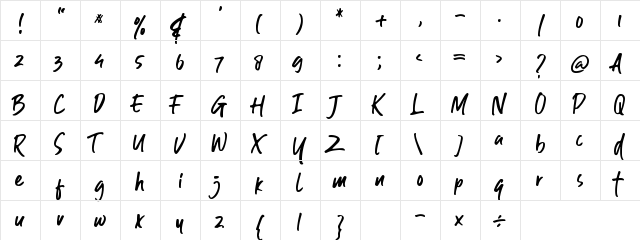
Guthen Bloots Personal Use Regular
Design Context for Guthen Bloots Personal Use Typeface
Guthen Bloots Personal Use is a composed and adaptable typeface that performs quietly and consistently across a wide range of design contexts.
Pro Tip: Use Guthen Bloots Personal Use in both headline and body roles to test its range before committing to a single application.